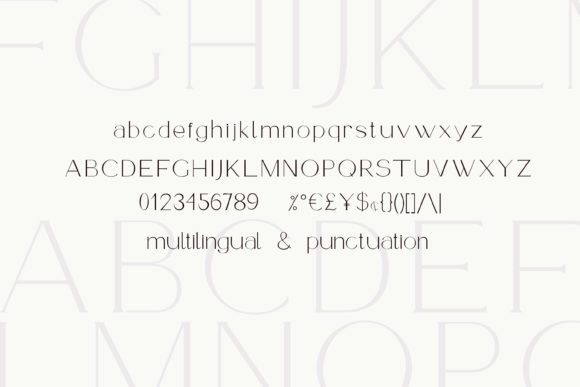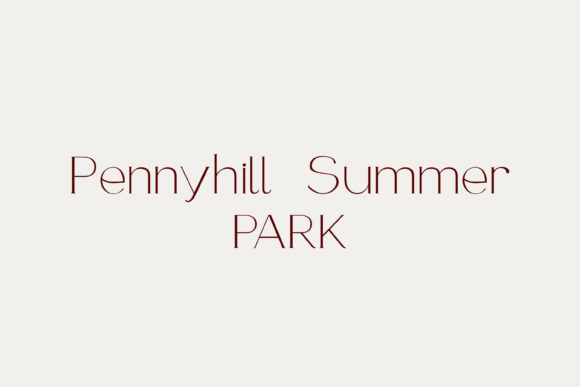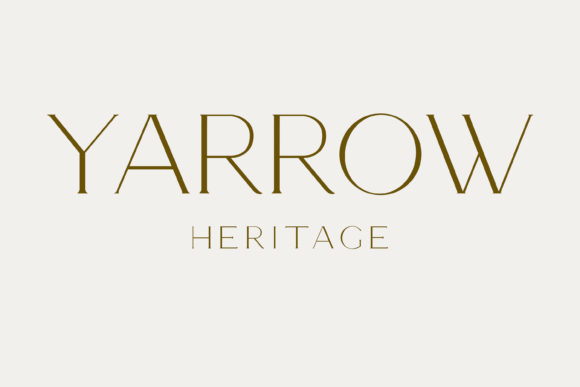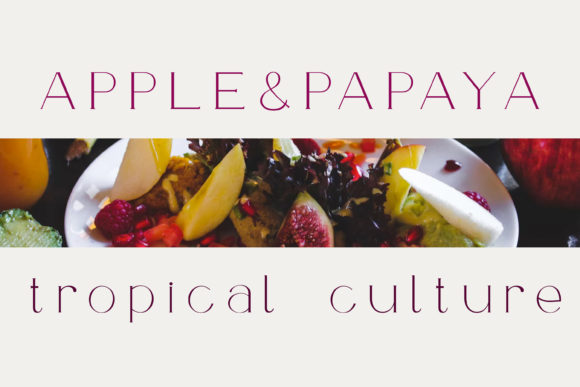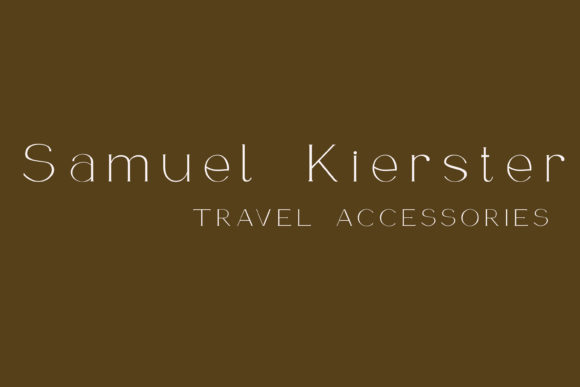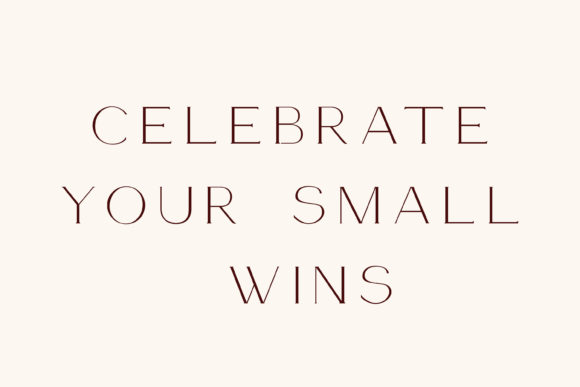
Discover the Elegance of Armeria Font
You’ve spent hours browsing through design inspiration boards, pouring over Pinterest and Instagram for the perfect aesthetic to match your next project. And then, it happens – you stumble upon a stunning wedding invitation or a beautifully crafted social media post that makes your heart skip a beat. The elegant script, the delicate curves, and the refined texture all come together to create a visual masterpiece that leaves you breathless.
| 👤 Author | Primafox Design |
That’s when you know you’ve found the perfect font – Armeria Font, to be exact. This slender, serif font is designed to add a touch of sophistication and whimsy to any design project. With its delicate lines and refined texture, Armeria Font is perfect for creating beautiful wedding invitations, gorgeous stationery art, and eye-catching social media posts.
Armeria Font Key Features
- Font Family: Armeria Font is a serif font family designed for both body text and display use.
- Unique Characteristics: The font features a modern and elegant design with a subtle flair of sophistication, making it suitable for a wide range of applications, including magazines, books, and websites.
- Language Support: Supports a wide range of languages, including Latin-based languages, Cyrillic, and Greek.
Armeria Font Review
I’ve had the chance to work with Armeria Font, and I must say it’s an interesting addition to the world of typography. Here’s my honest take on this font.
- Unique design: Armeria Font boasts a distinctive and elegant design that sets it apart from other fonts.
- Good for titles: The font’s bold and eye-catching style makes it perfect for use in titles and headings.
- Supports multiple languages: Armeria Font supports a wide range of languages, making it a great option for global projects.
- Readability issues: At smaller font sizes, Armeria Font can be difficult to read, especially for long blocks of text.
- Lack of expressiveness: The font’s design can feel a bit one-dimensional, limiting its use in creative projects.
Armeria Font is a solid choice for projects where you need a unique and eye-catching title font. However, its limitations make it less suitable for large bodies of text or projects where readability is crucial. With some careful use and consideration, Armeria Font can add a touch of elegance to your designs.
- Use the font’s advanced features, such as ligatures and swashes, to add depth and character to your design.